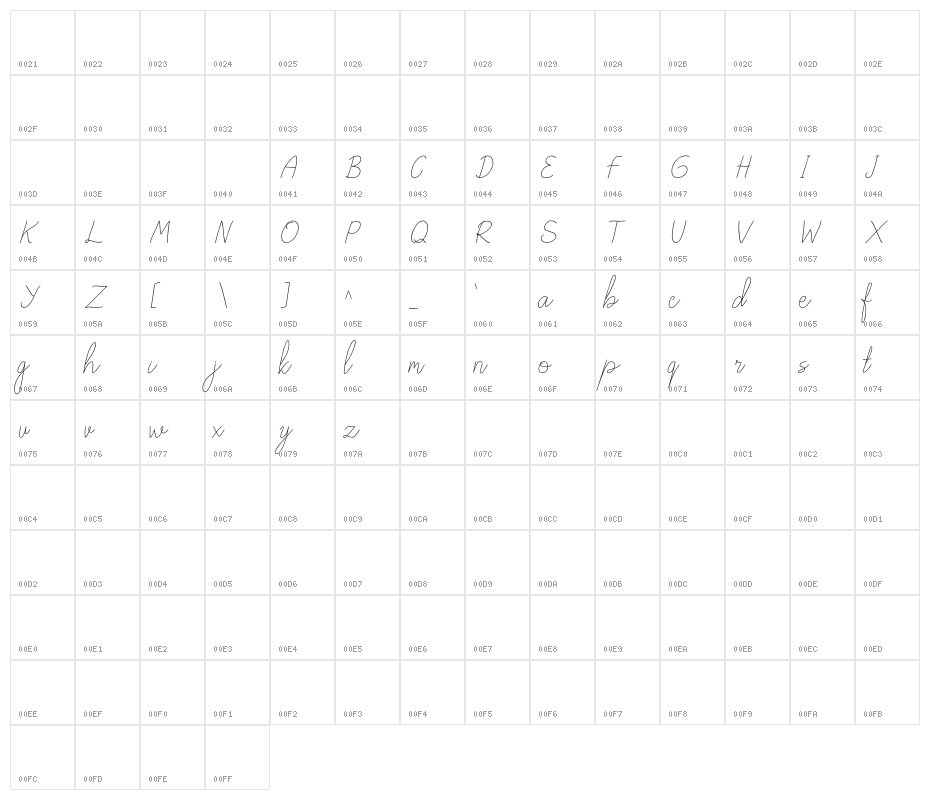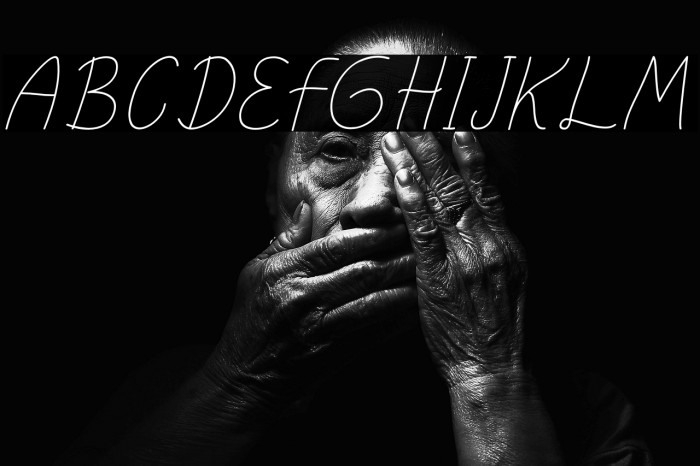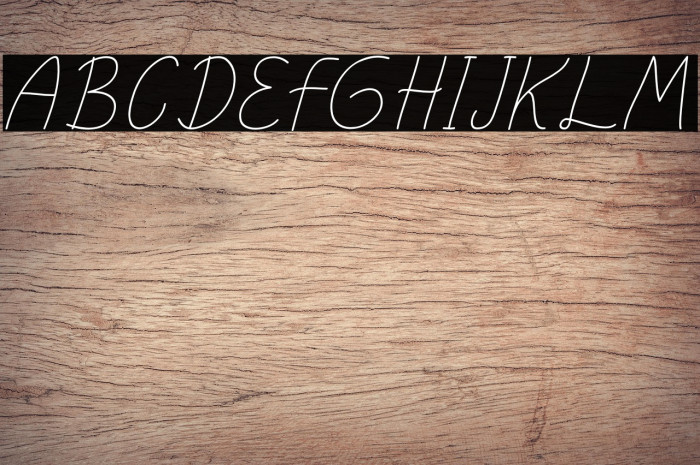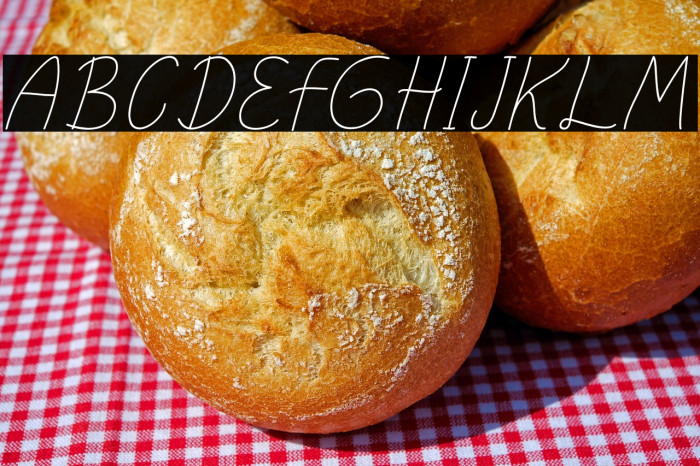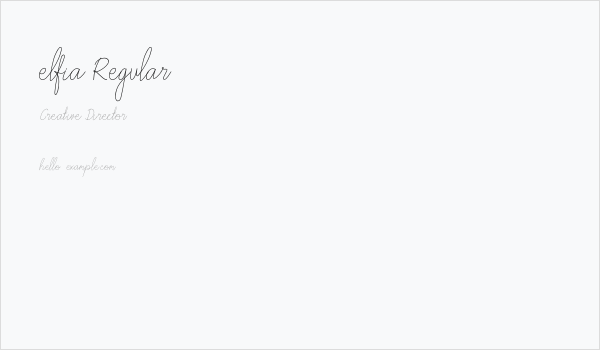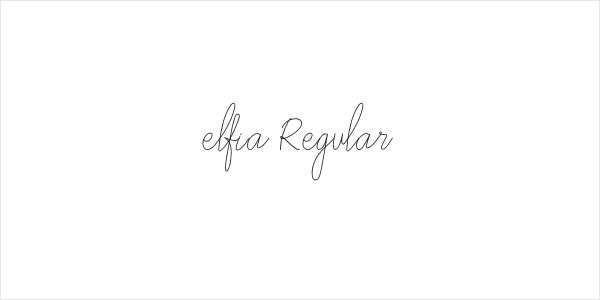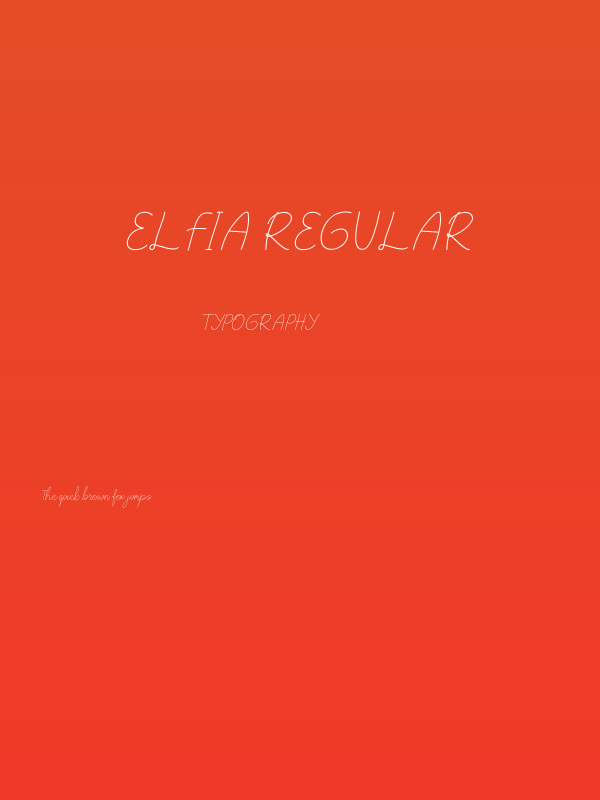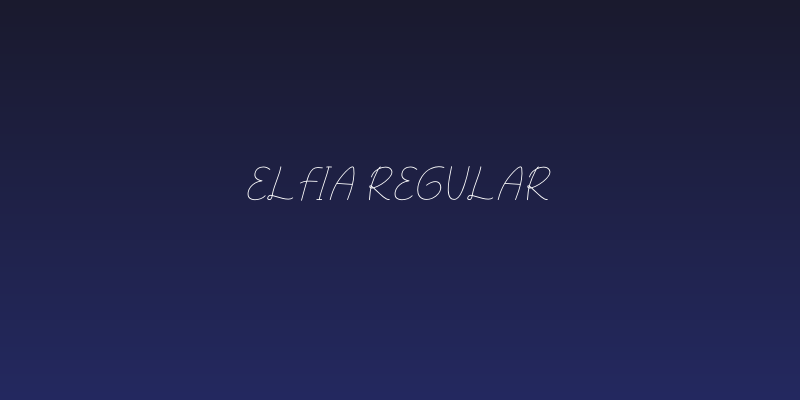
elfia Regular Font
elfia Regular Description
This elegant script font features a delicate and flowing style, characterized by its thin, graceful strokes and smooth curves. The uppercase letters are tall and slightly slanted, giving a sense of sophistication and fluidity. The lowercase letters connect seamlessly, enhancing the cursive appearance and adding a touch of elegance. The font maintains a consistent stroke width, providing a harmonious and balanced look. It is perfect for projects that require a personal, handwritten touch, such as invitations, greeting cards, and branding materials. The overall design is both modern and timeless, making it versatile for various applications.
| Overall Style | Elegant, Modern |
| Use Case | Invitations, Greeting cards, Branding |
| Proposed Projects | Ideal for wedding invitations, greeting cards, personal branding, and elegant packaging. |